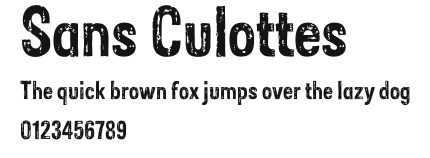
Sans Culottes Preview
• Font Name: Sans Culottes
• Full Font Name: Sans Culottes
About Sans Culottes.ttf
Sans Culottes.ttf is a modern, elegant sans-serif font designed for ultimate readability and visual harmony. Perfect for branding, headlines, web design, and print materials.